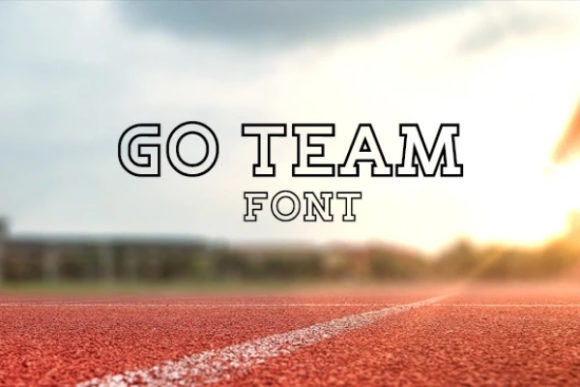
Journey into the world of sports and athleticism with the captivating energy of Go Team Font, a display font meticulously crafted to ignite your designs with a dynamic spirit. This font transcends the ordinary, capturing the essence of competition, teamwork, and the pursuit of excellence.
With its bold strokes and energetic curves, Go Team Font is a visual symphony that harmonizes with the intensity of sports. Its unique design dances across the screen, evoking the thrill of victory and the determination to push limits. Unleash the power of this font and witness your words transform into a vibrant spectacle that commands attention and fuels inspiration.
Go Team Font is not just a collection of letters; it's an expression of athleticism, a celebration of human capabilities. Whether you're designing posters for upcoming events, creating merchandise for passionate fans, or crafting digital content that captures the pulse of sports, this font is your ultimate ally. Its versatility extends beyond sports, seamlessly adapting to various projects and industries, adding a touch of dynamism and energy wherever it's used.
With Go Team Font, you're not just downloading a font; you're embracing a mindset, a spirit that propels your designs forward. It's a font that ignites passion, fuels creativity, and leaves a lasting impression on your audience. Dare to be bold, to make a statement, and to let your words resonate with the unwavering determination of athletes who strive for greatness.
Go Team Font: The Champion of Sports-Themed Designs. Unleash the Dynamic Spirit of Competition and Achieve Design Victory!